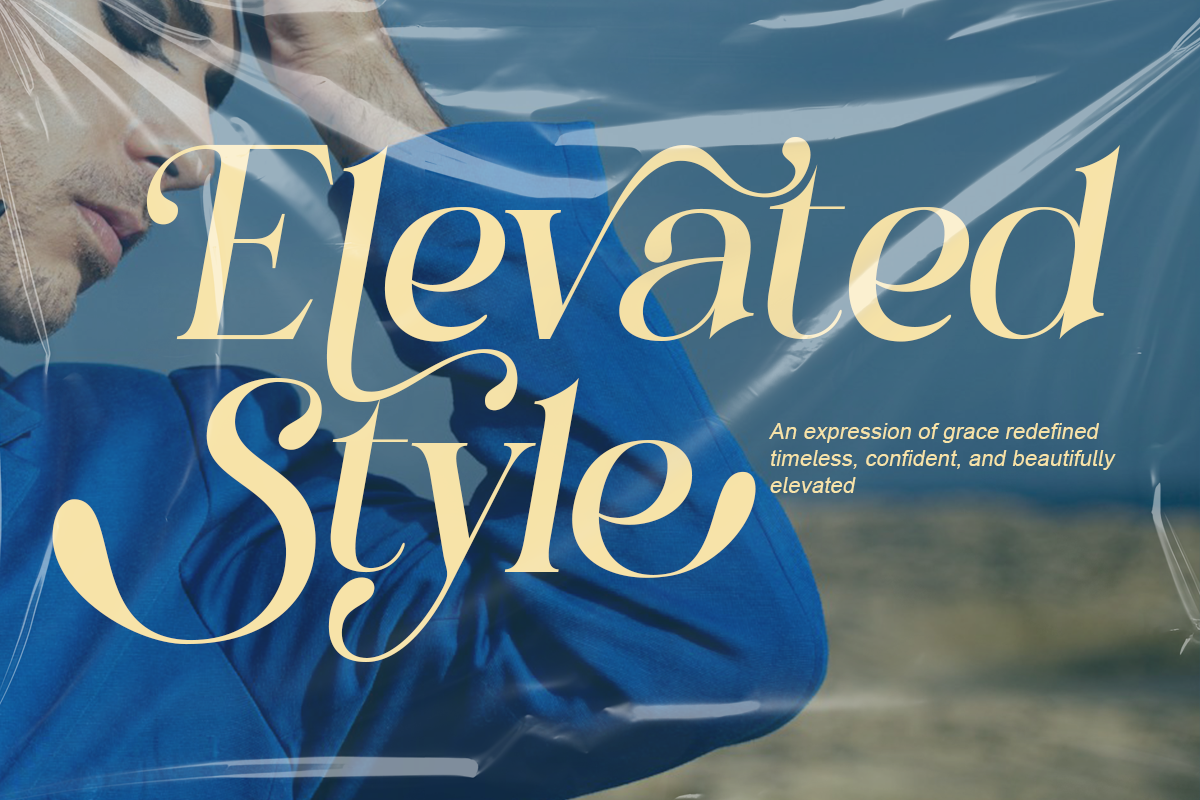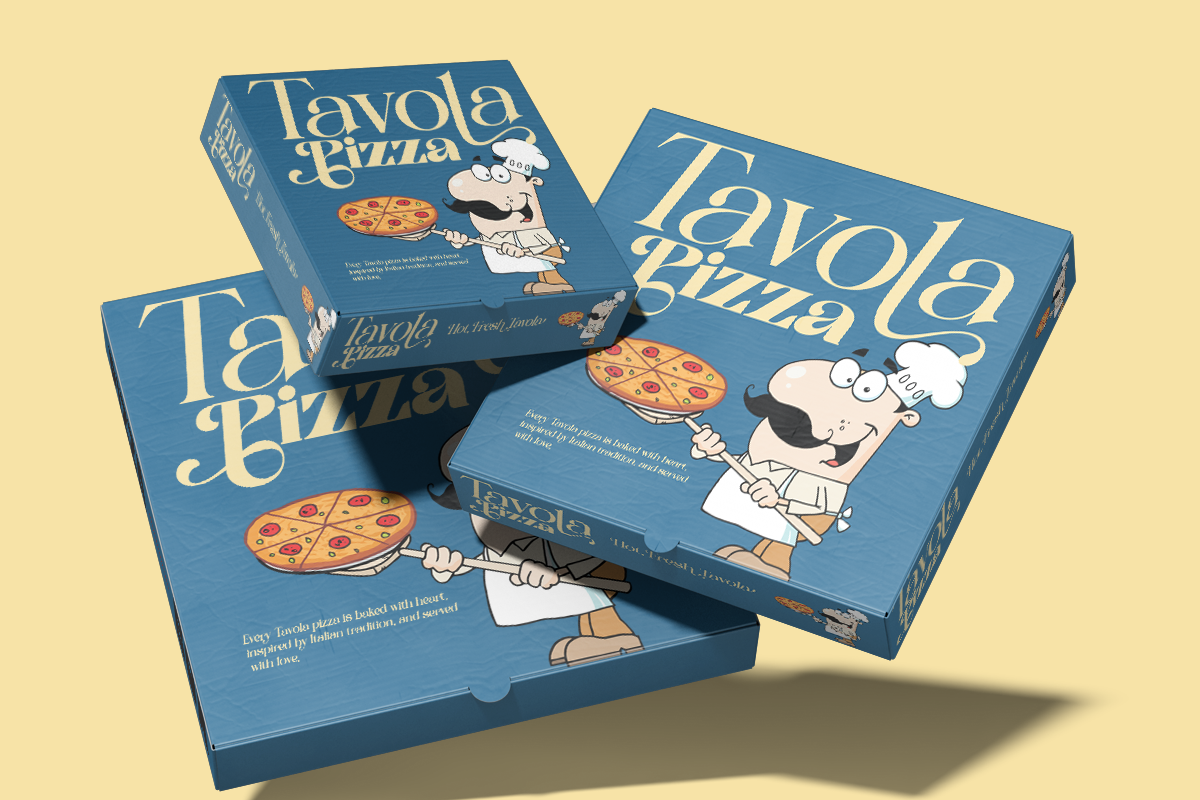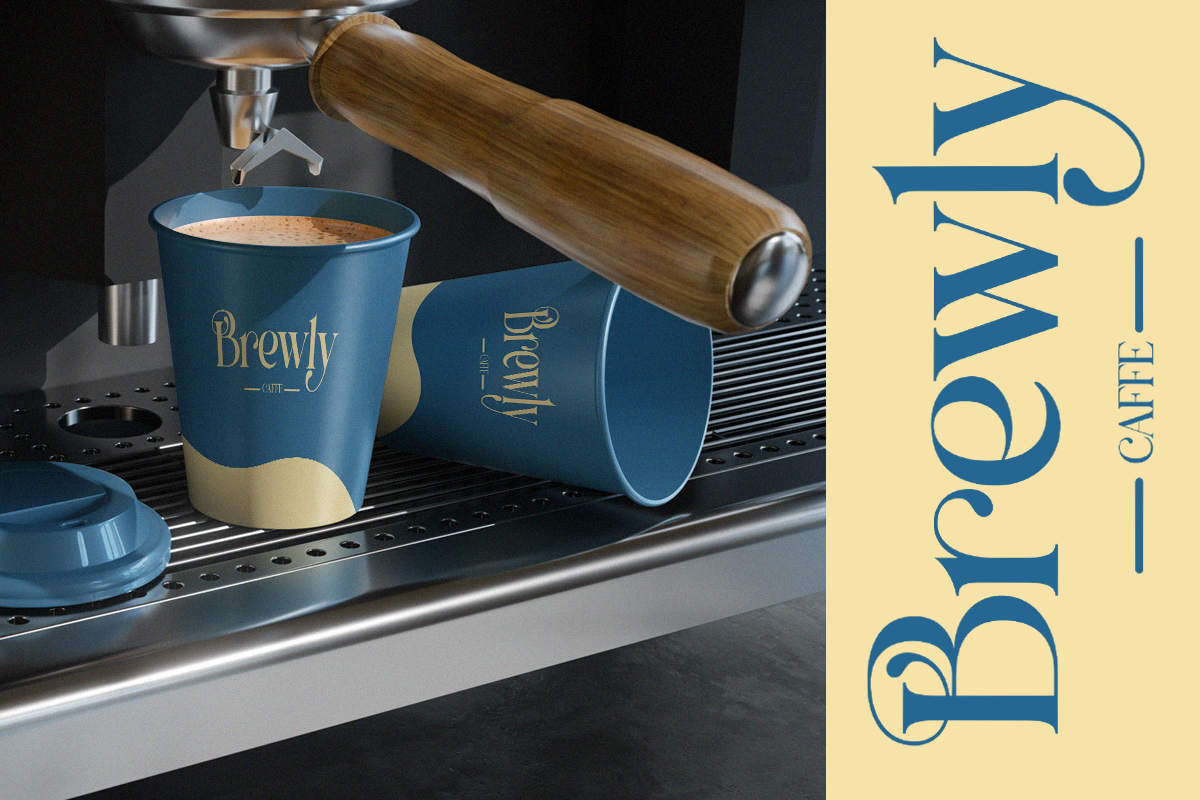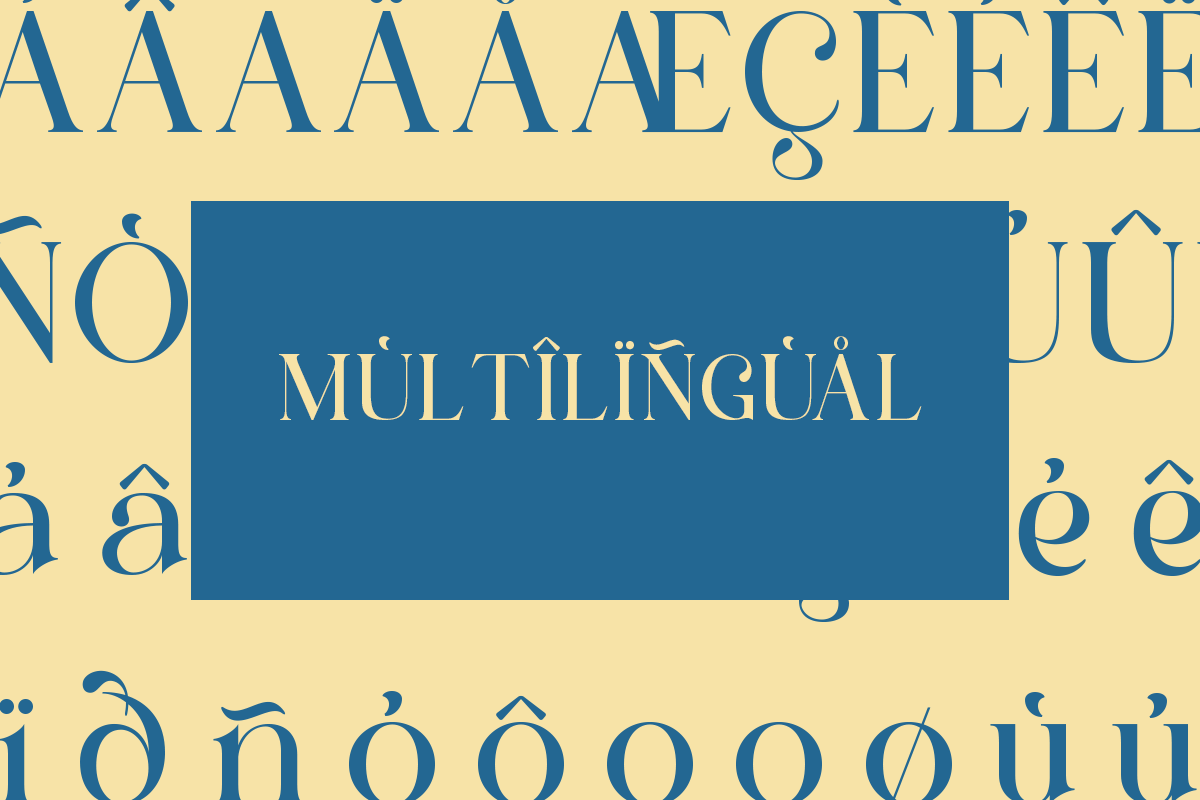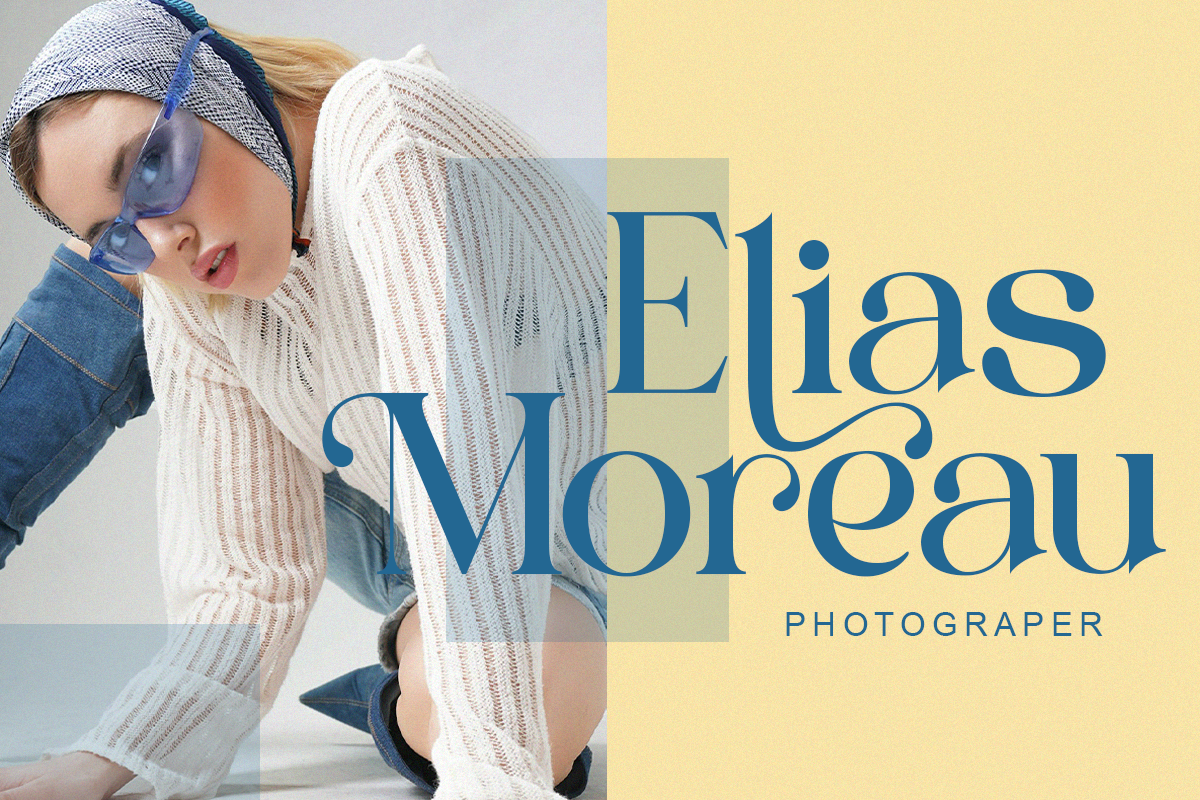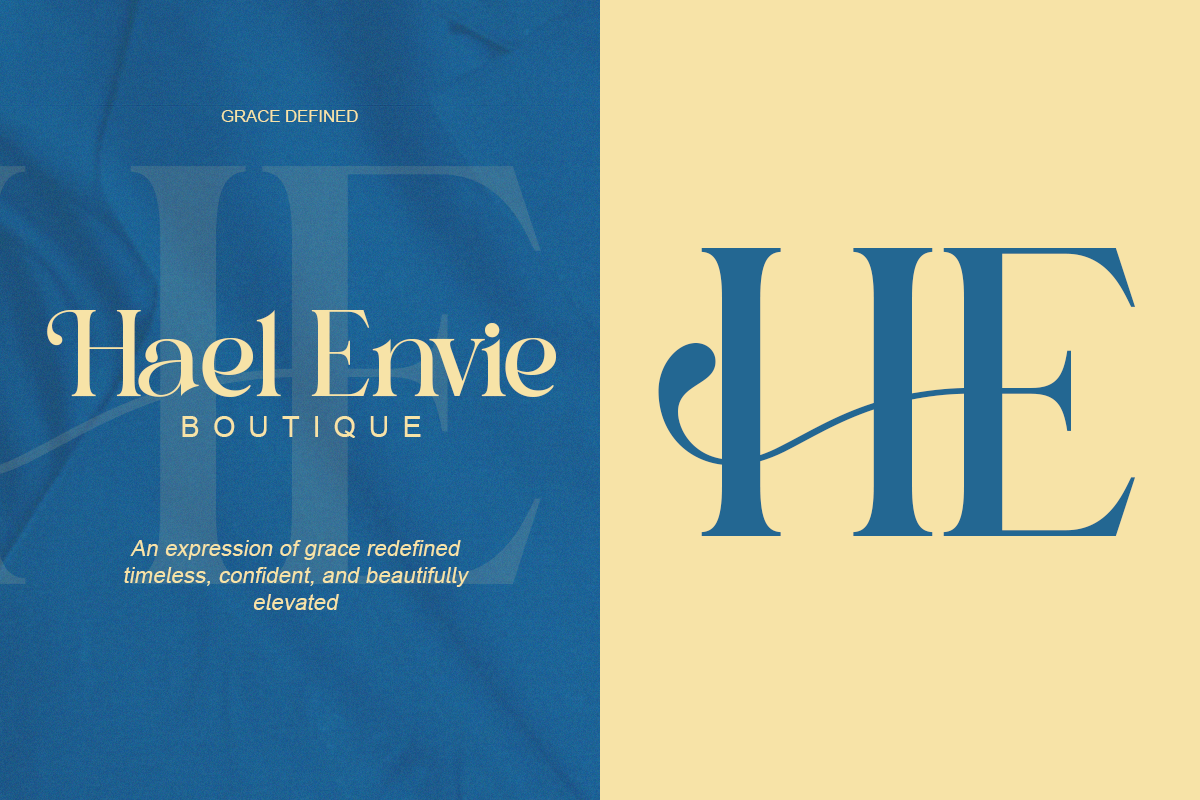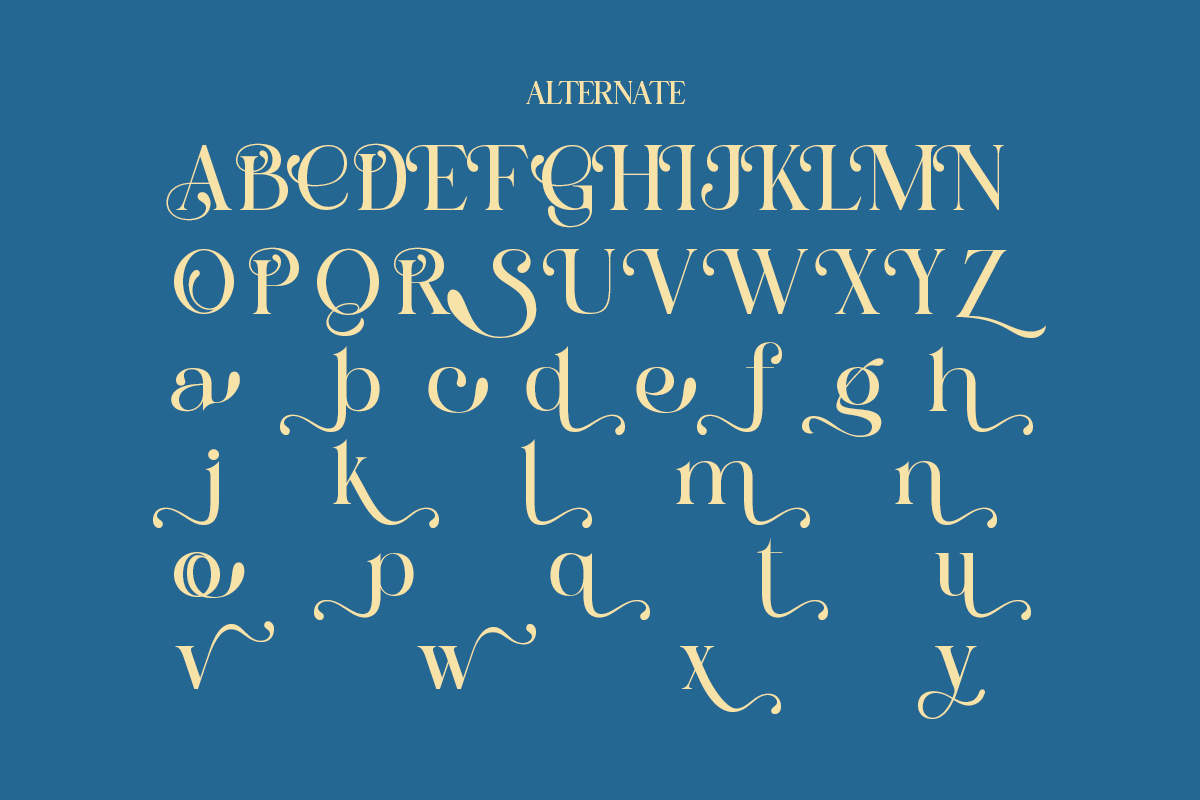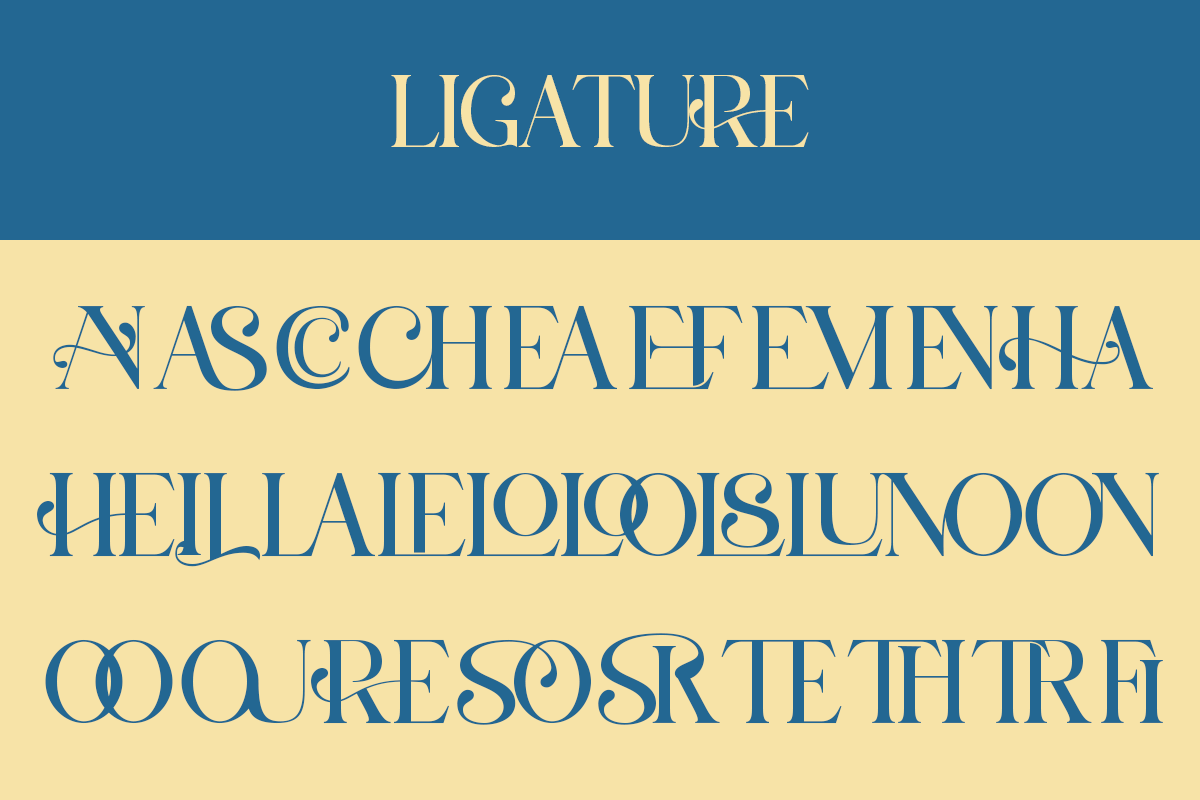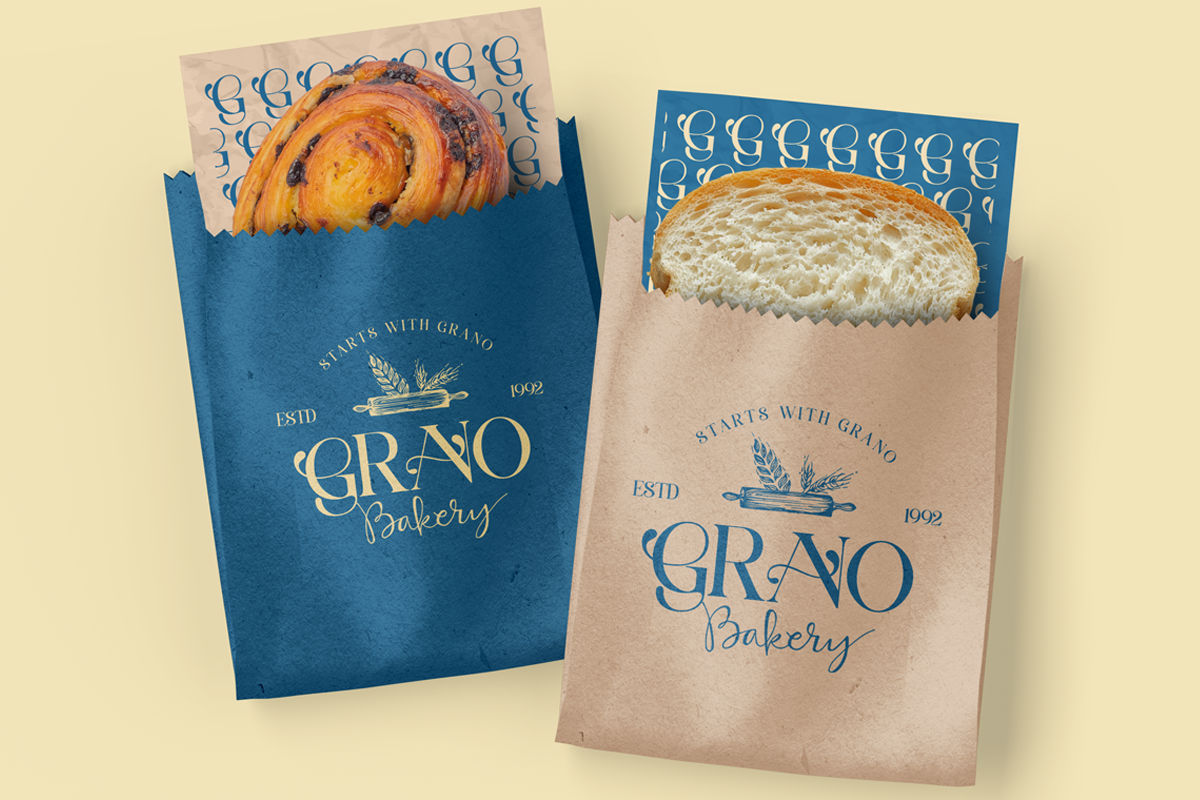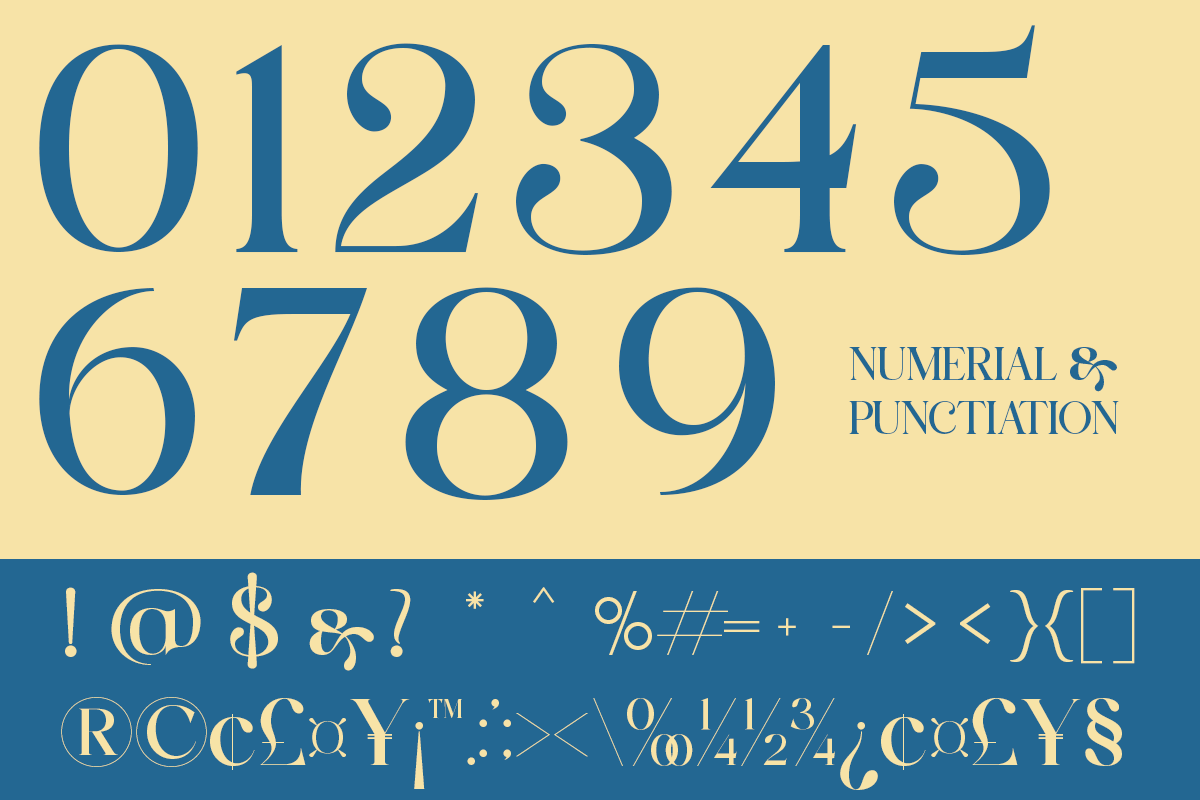
Saltive - Elegant Modern Serif
Meet Saltive, a modern serif display font designed to elevate visual storytelling. With its flowing curves and elegant structure, Saltive is perfect for branding, fashion projects, editorial layouts, and stylish headlines.
It brings a confident yet soft presence to both print and digital designs.
- Elegant display serif style
- Smooth curves & modern proportions
Perfect For Branding, fashion logos, editorial headlines, packaging, magazines, social media visuals, and premium design projects.